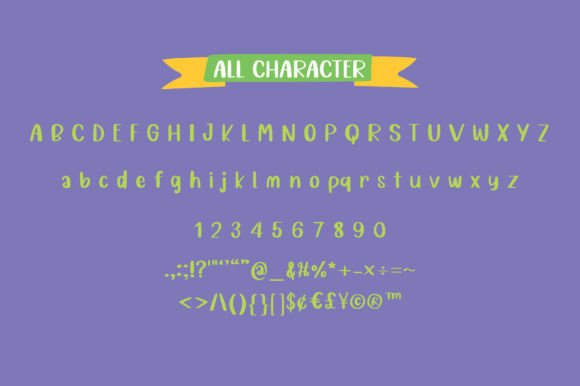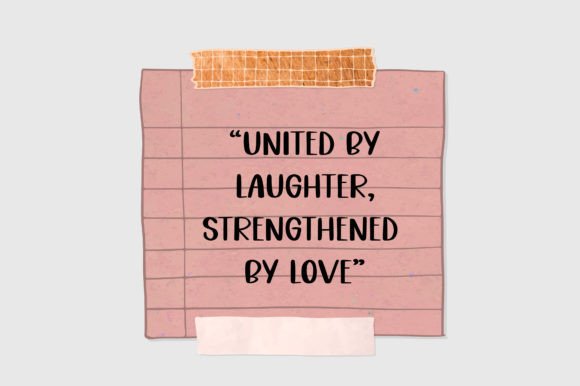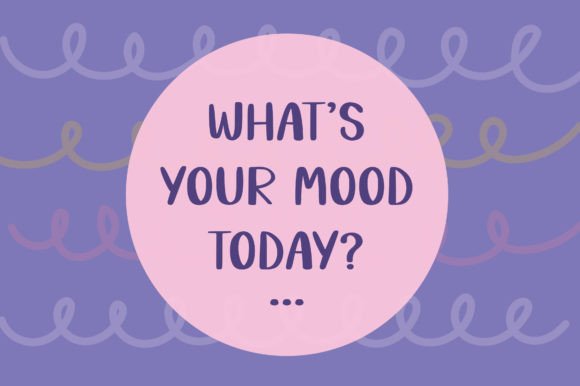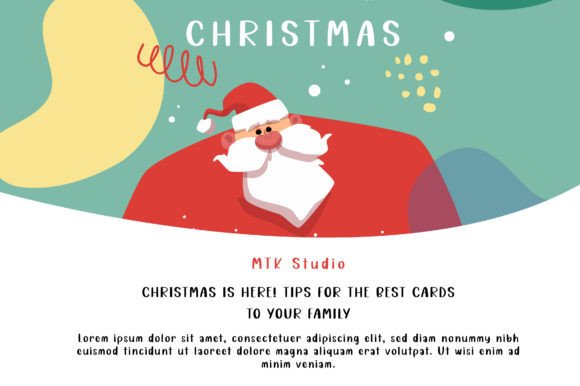
Introducing the CuddleScript Font: Where Simplicity Meets Cuteness
In the world of digital design, fonts play a crucial role in conveying the tone and aesthetic of a project. For those who appreciate the charm of handwritten notes and the precision of digital planning, the CuddleScript Font is a game-changer. This delightful font embodies the perfect blend of simplicity and cuteness, making it an ideal choice for designers, crafters, and anyone looking to add a touch of personality to their digital creations.
The CuddleScript: More Than Just a Font
The CuddleScript Font is not just another Sans Serif font; it’s an immersive handwriting experience that can elevate your digital note-taking exercises into an exercise in style. With its neat and tidy appearance, this font is reminiscent of carefully planned study notes and meticulously designed digital collages. Whether you’re a Goodnotes or Procreate enthusiast, or simply someone who appreciates a stylish touch in their fonts bundle, the CuddleScript is sure to impress.
A Sparkling Mix of Simplicity and Cuteness
So, what sets the CuddleScript Font apart from other fonts in its class? The answer lies in its unique blend of simplicity and cuteness. This font boasts a clean aesthetic that is both visually appealing and highly legible. The CuddleScript’s design is characterized by its rounded edges, gentle curves, and subtle flair, making it perfect for a wide range of applications, from digital note-taking to crafting and design projects.
For designers and crafters, the CuddleScript Font is a treasure trove of creative possibilities. Its versatility makes it suitable for a wide range of projects, from digital invitations and social media graphics to planners, journals, and more. The font’s clean aesthetic and adorable charm ensure that your designs will stand out from the crowd, while its ease of use makes it accessible to creators of all skill levels.
Key Features of the CuddleScript Font
- Neat Handwritten Charm: The CuddleScript Font boasts a delightful, handwritten appearance that’s both tidy and visually appealing.
- Digitally Refined: This font has been carefully crafted to ensure it looks great in digital formats, making it perfect for use in Goodnotes, Procreate, and other digital design applications.
- Sans Serif with a Twist: The CuddleScript’s Sans Serif design is infused with subtle curves and rounded edges, giving it a unique and adorable charm.